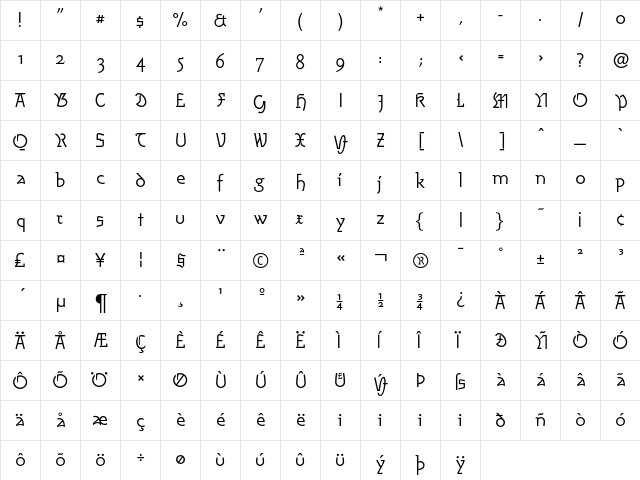
AmherstFraktur LT Std Regular Regular
| Foundry | Linotype Library GmbH |
| Designer | Richard Yeend |
Design Context for AmherstFraktur LT Std Regular Typeface
AmherstFraktur LT Std Regular channels the dramatic heritage of Fraktur and Gothic scripts, bringing a sense of historical gravitas to any design. Its slender proportions lend an understated elegance to any composition.
A natural fit for music packaging, gothic editorial design, and any project that needs historical weight.
Font Pairing: Pair with a clean neutral sans-serif for body copy to let AmherstFraktur LT Std Regular's character lead without overwhelming the composition.
Pro Tip: Reserve AmherstFraktur LT Std Regular for display and logo use — pair it with a clean sans-serif for body copy to prevent the composition from feeling oppressive.